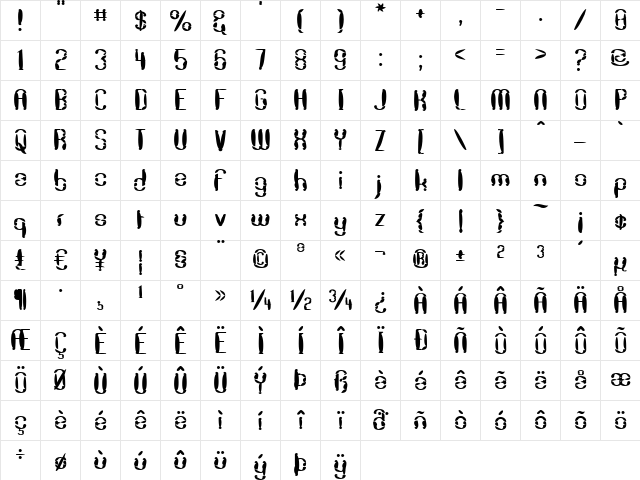
Dekon Regular
| Designer | Graham Meade |
Design Context for Dekon Typeface
Dekon is a composed and adaptable typeface that performs quietly and consistently across a wide range of design contexts.
Pro Tip: Pair Dekon with a font of contrasting weight or personality to build a more expressive typographic hierarchy.